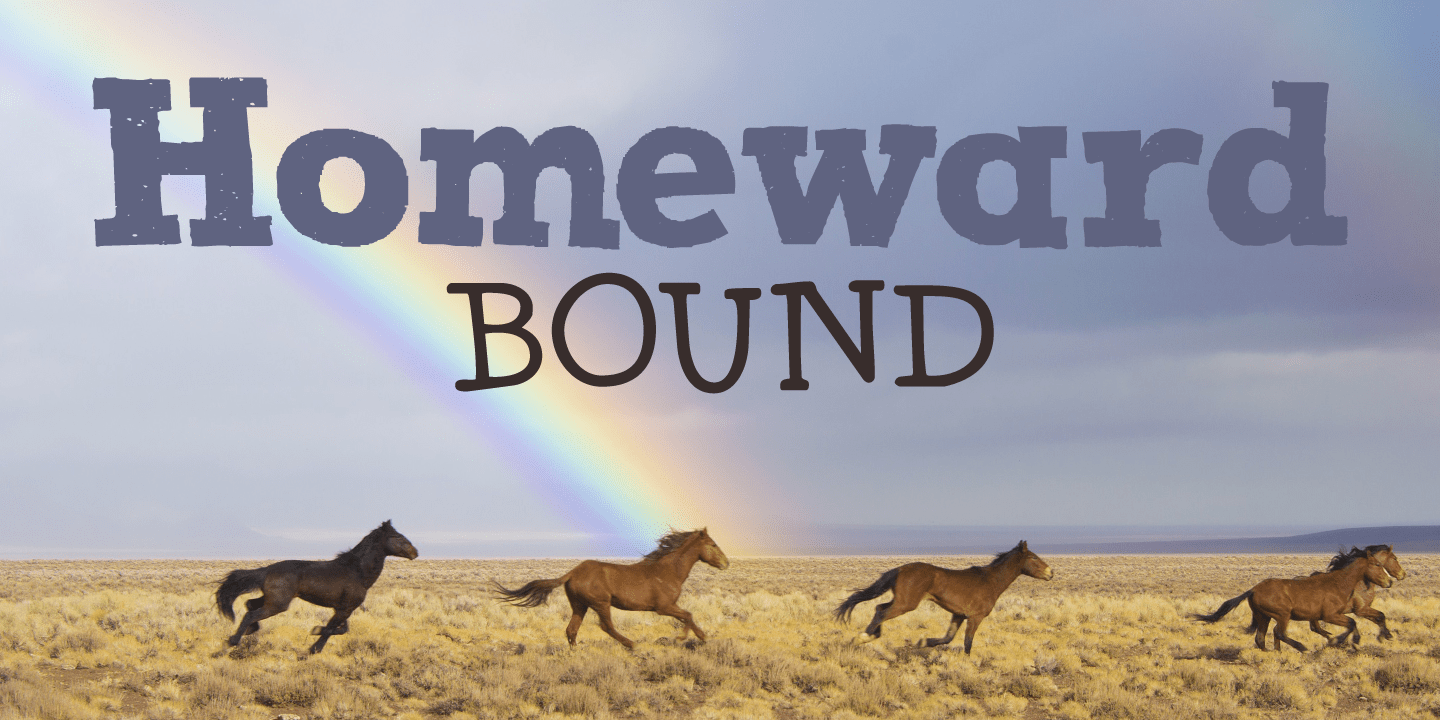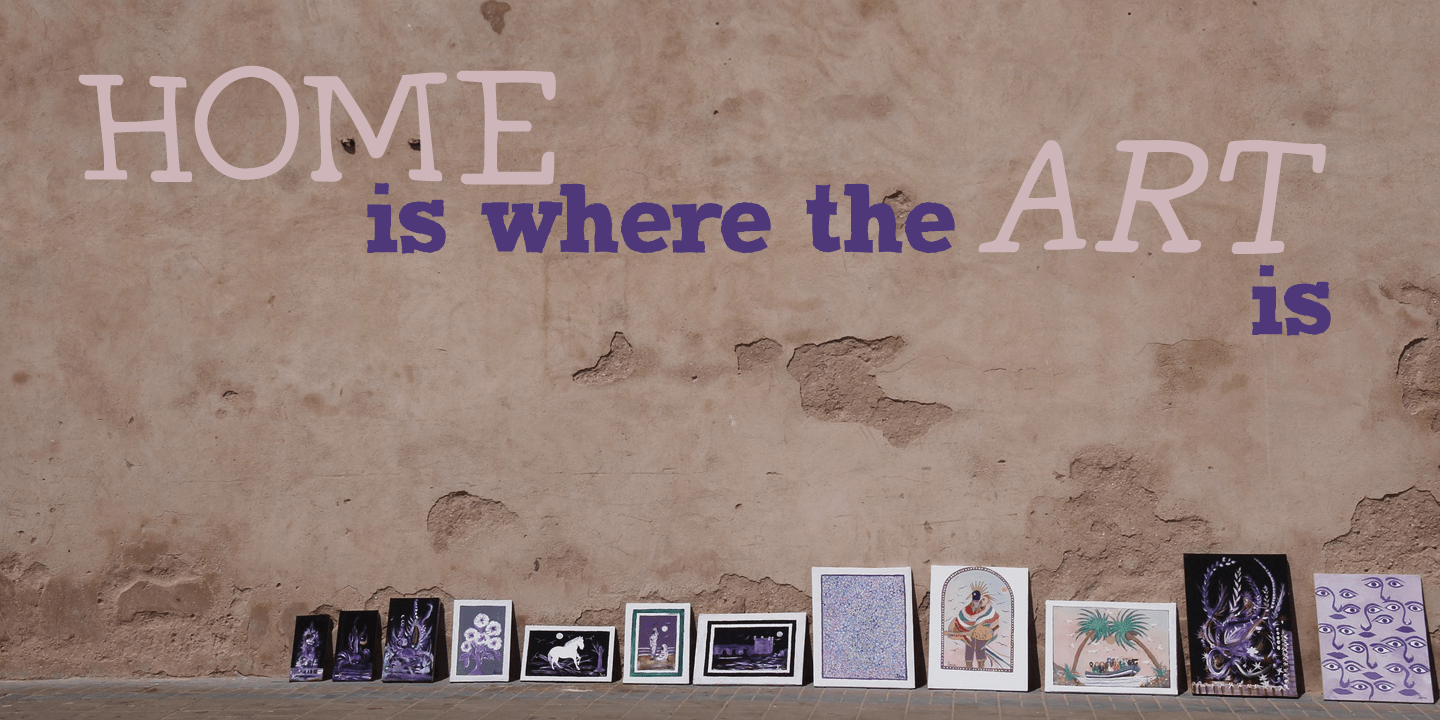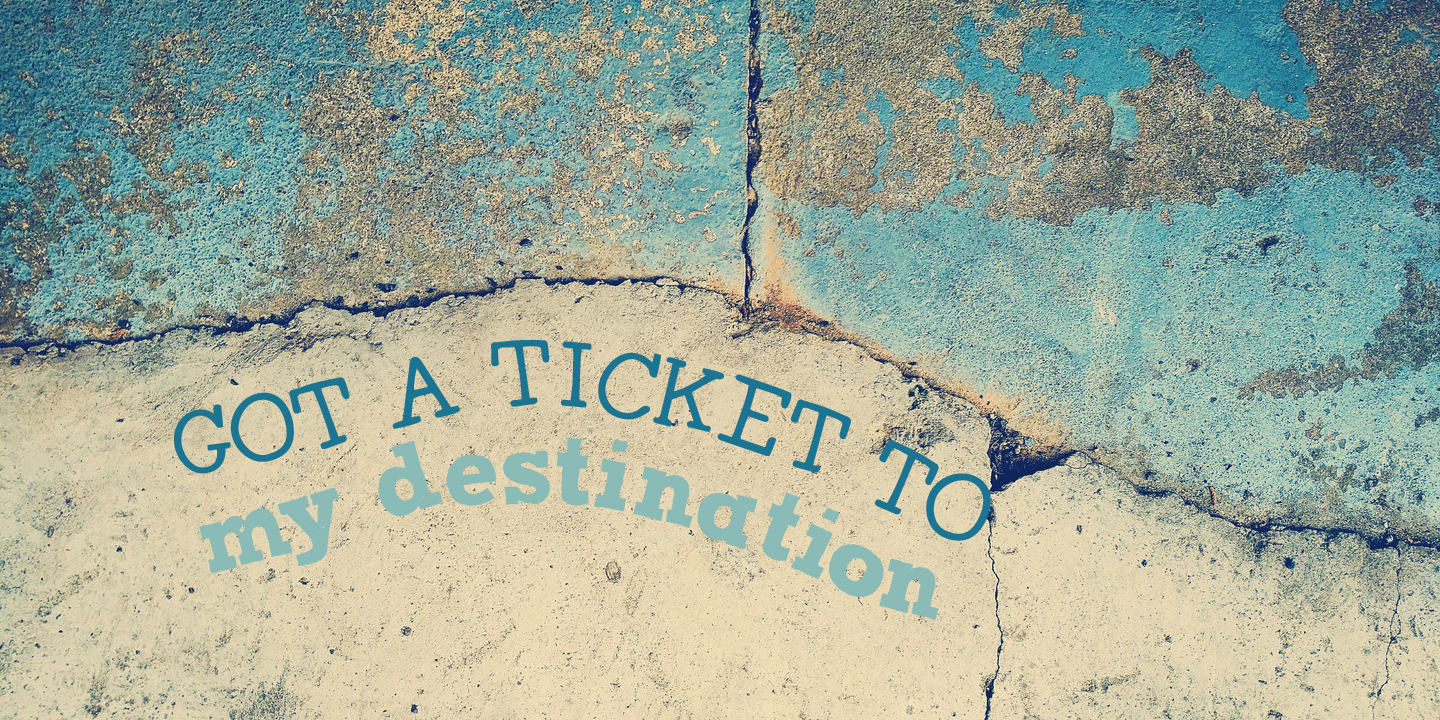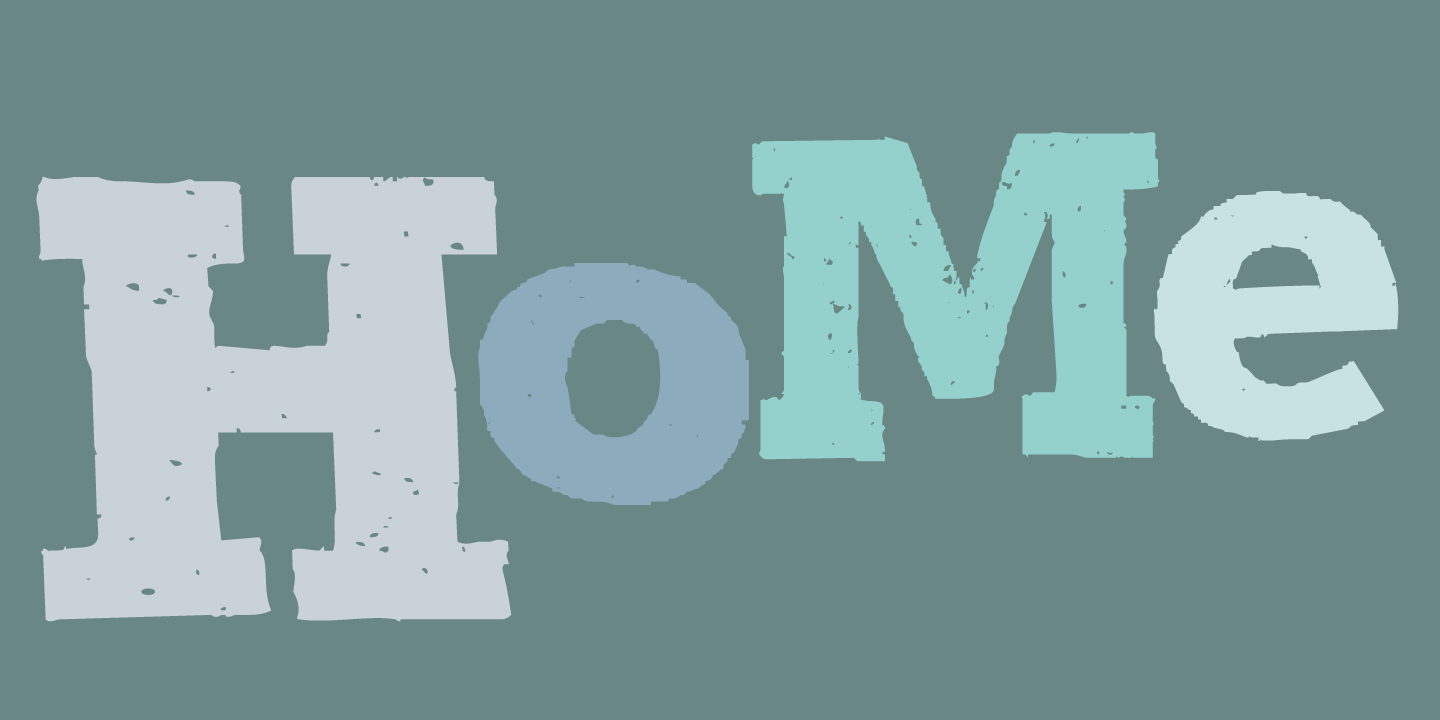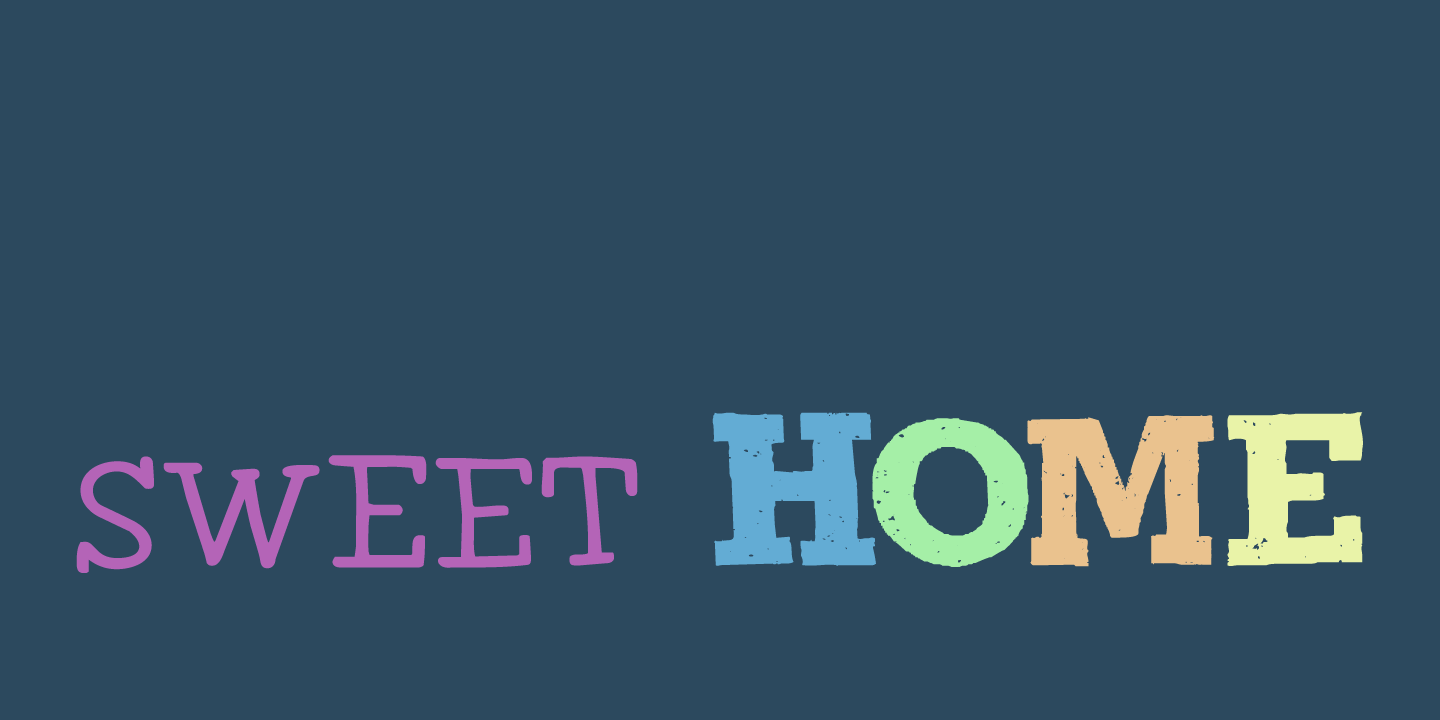
Homeward Bound
Homeward Bound is a fat, grungy slab serif font - all handmade and loosely based on Rockwell. Together with sidekick Homeward Bound II, this baby will lighten up your day, bring you your newspaper and do your dishes to boot.
Well, that may not be an accurate description of Homeward Bound's abilities, but I am sure it will make your work stand out, giving it that ?handmade eroded vintage? look.